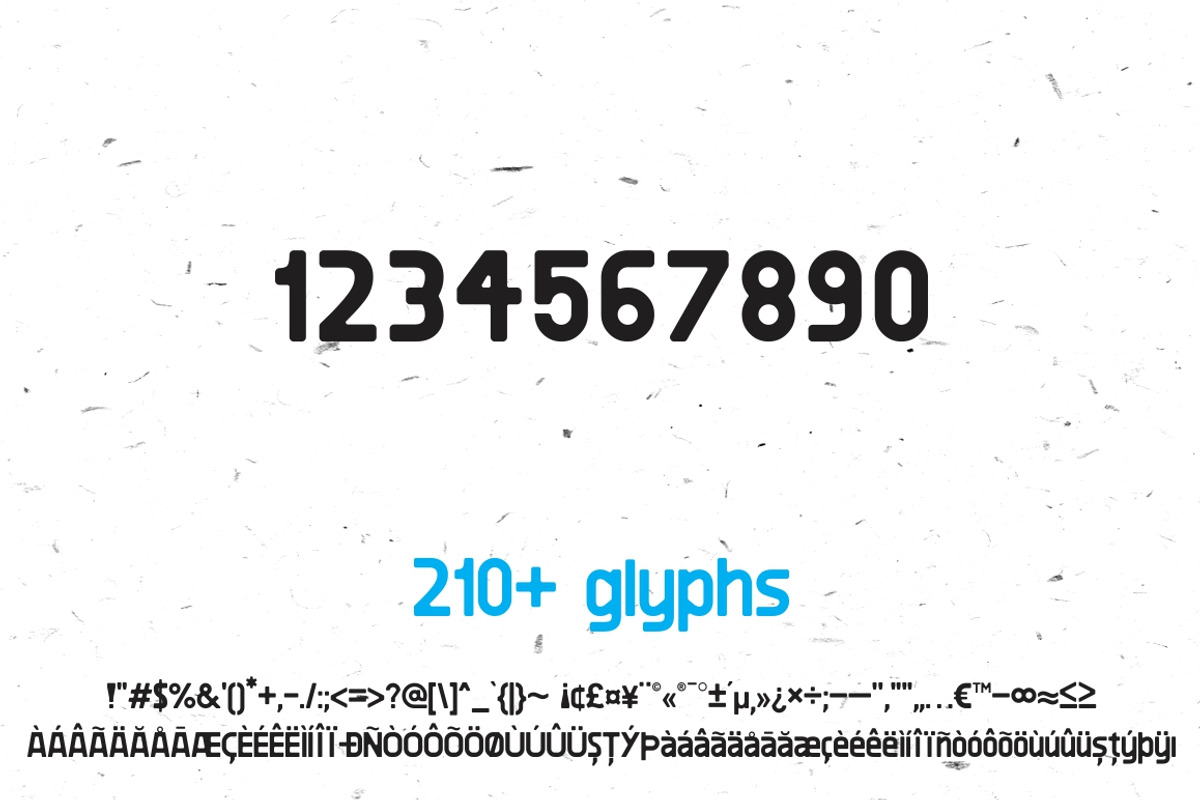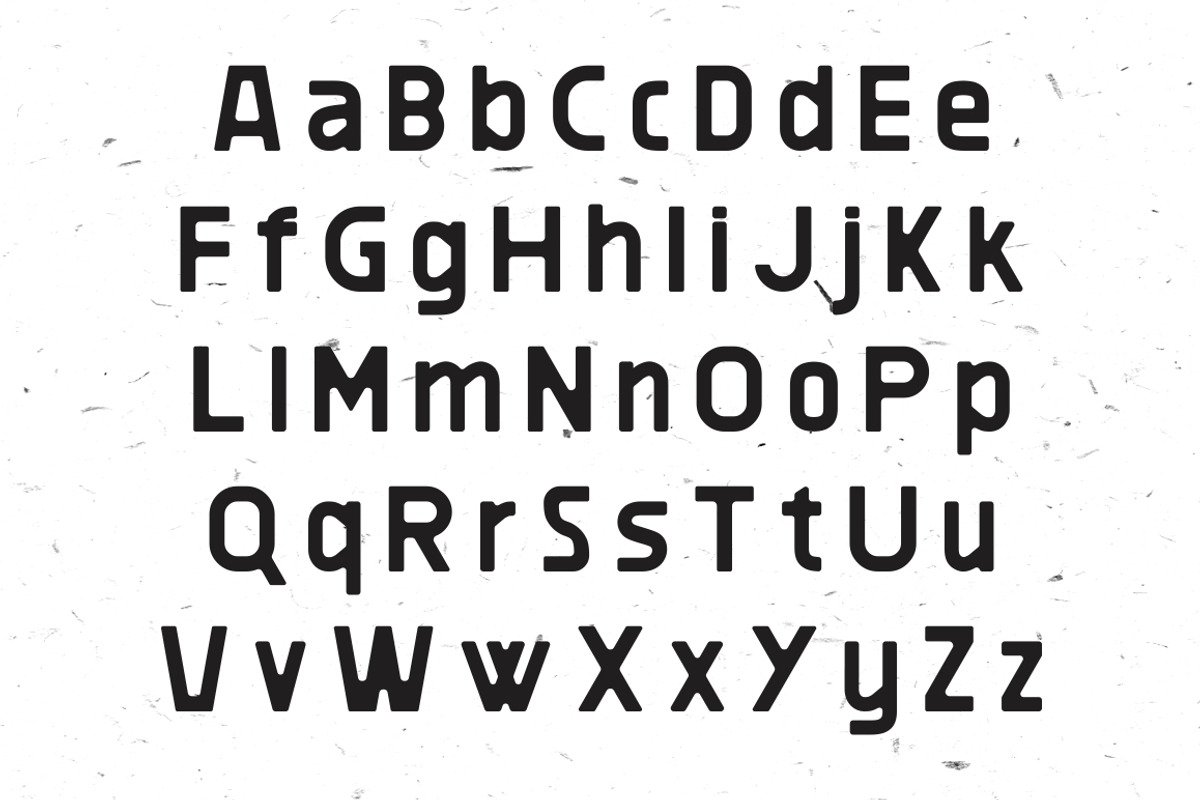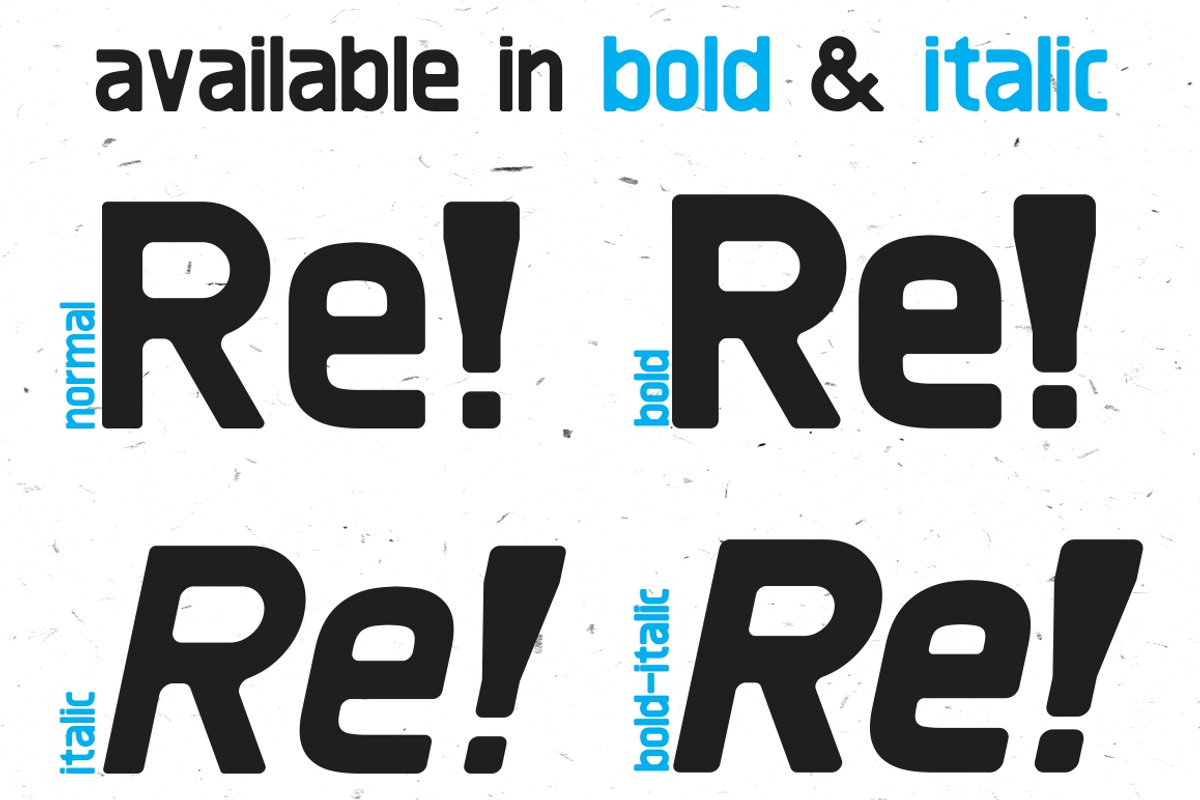
Revolution Typeface
Revolution Typeface by Monogram is a font selected for branding, posters, packaging, typography.
- It includes more than 210 glyphs available in normal, bold, italic and bold italic styles to fit your needs.
- Revolution Regular
- Revolution Italic
- Revolution Bold
- Revolution Bold Italic
Revolution Typeface by Monogram fits naturally into Branding, posters, packaging, typography.